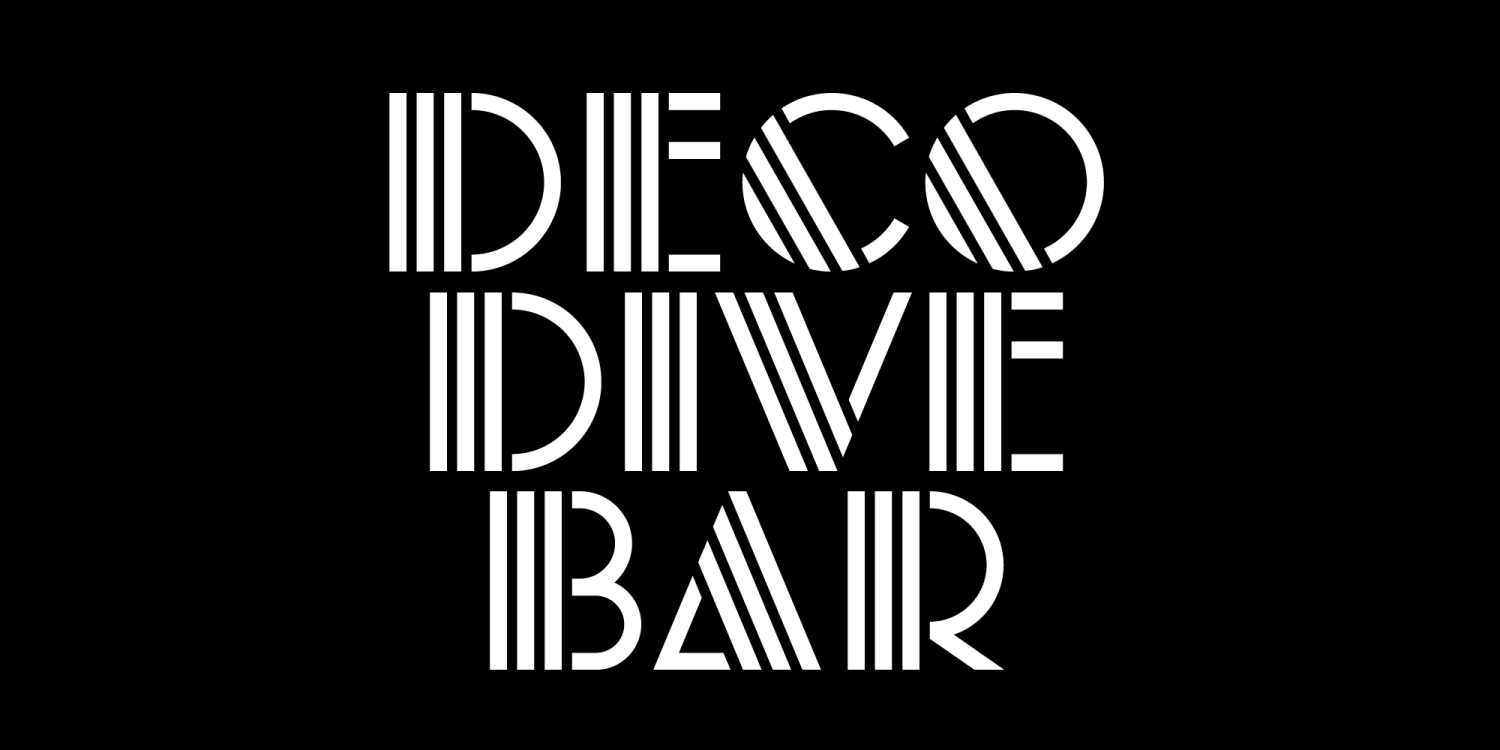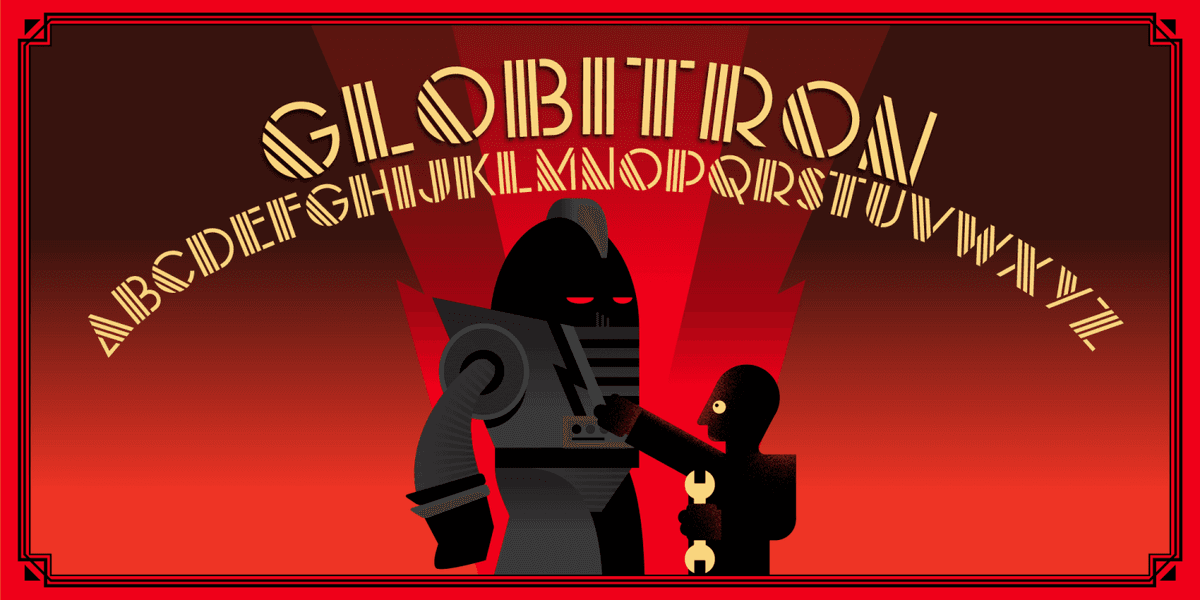
Art Deco is comin' back. "Yeah, it's been back." you say. But I'm not talking about just some fun interior design elements, I'm talking bigger picture. This time it's not just about luxury and glamour in an industrial upswing, this time the stakes are high. I don't want to say too much, but it involves some maybe redesigning some pretty important landmarks, also I think the Illuminati is talking about doing a collab with Japan, stuff like that. This font captures the art deco style, but it's also got that future space thing going on that lets people know this ain't yo granddaddy's deco style, this one's for us.